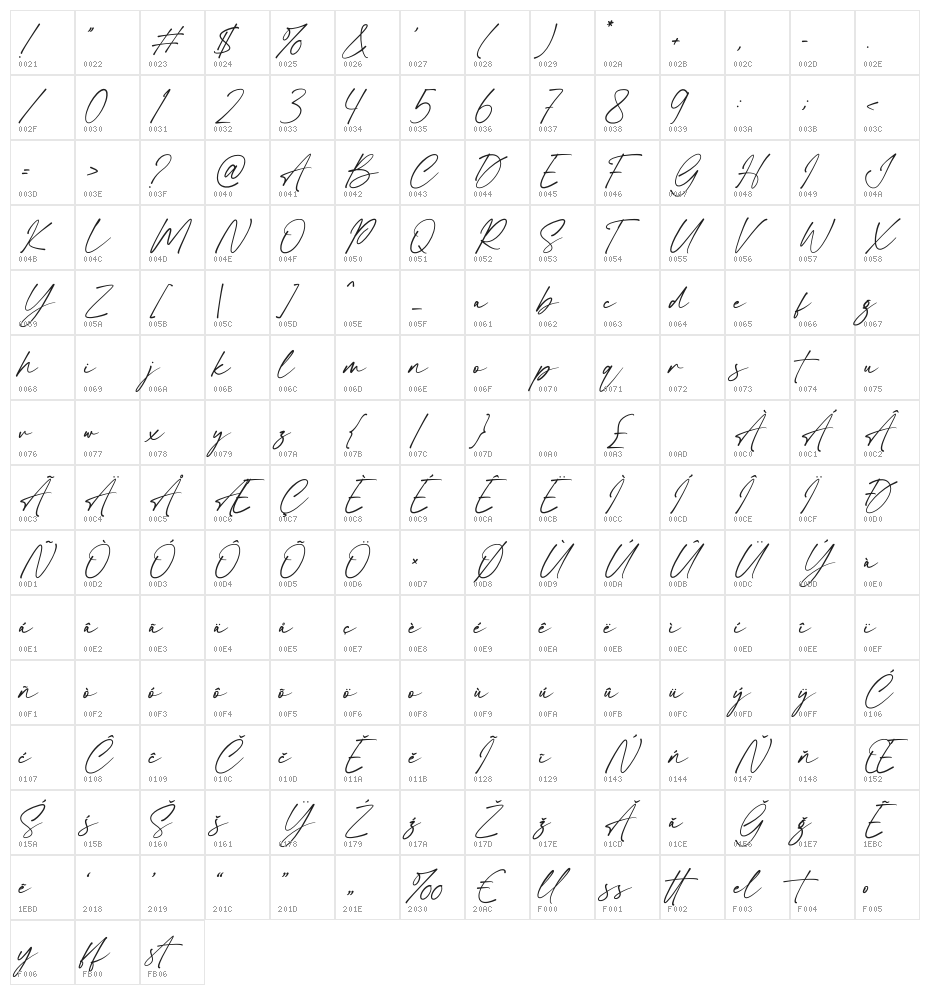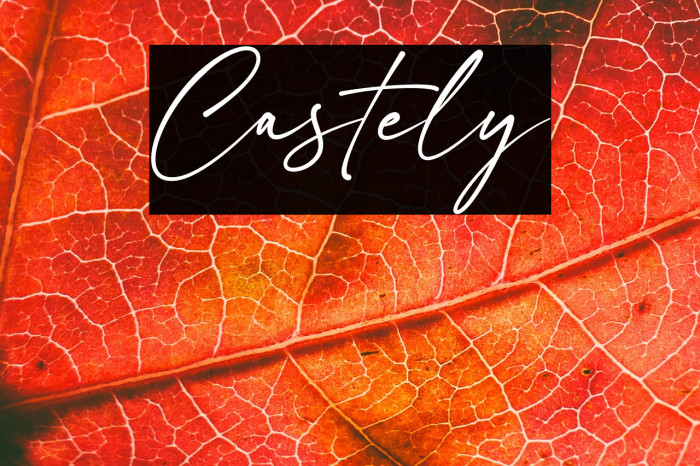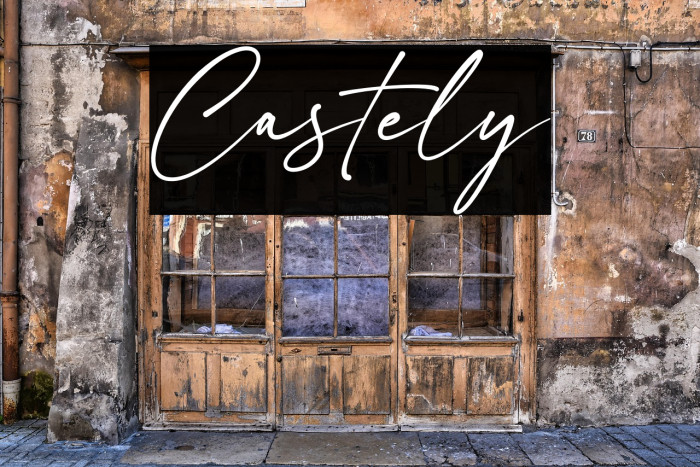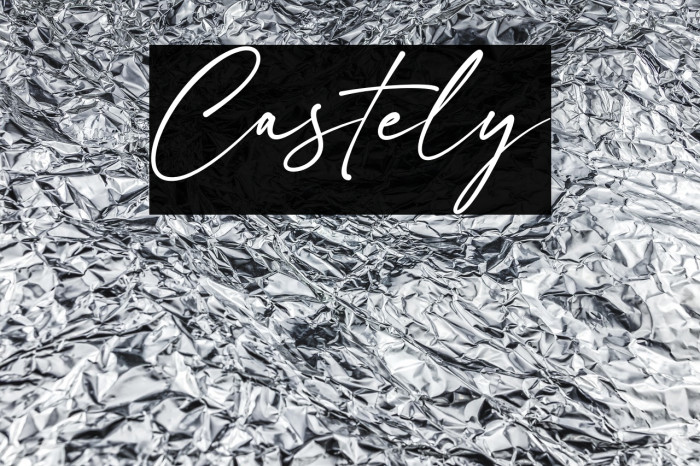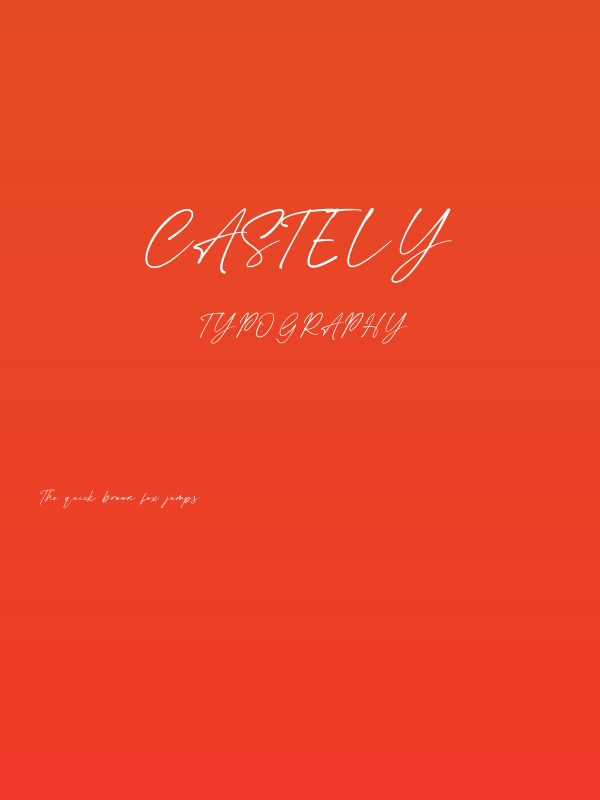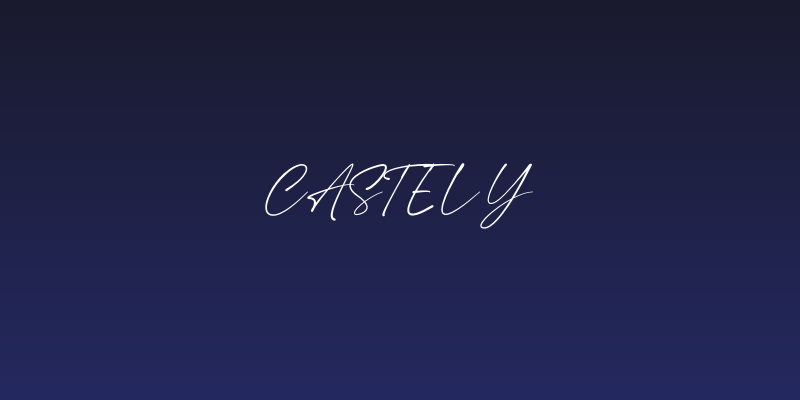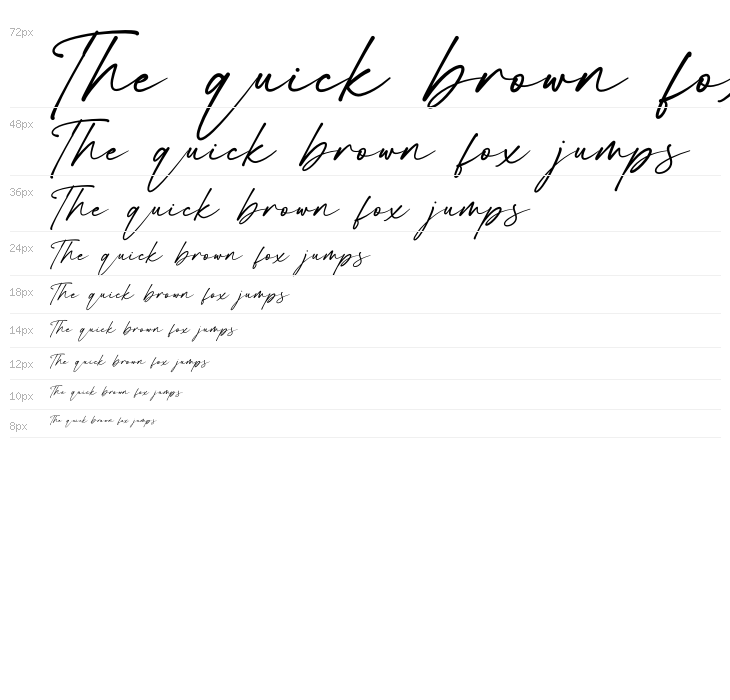
Castely Font
Castely Description
This elegant script font features fluid, cursive strokes that mimic natural handwriting. The uppercase letters are slightly more formal with a consistent slant, while the lowercase letters exhibit a casual flair with varied loops and connections. Numbers and special characters maintain the same flowing style, ensuring a cohesive appearance across all text. The font's delicate lines and graceful curves make it ideal for projects that require a personal touch.
| Overall Style | Elegant |
| Use Case | Logos, Invitations, Personal Branding |
| Proposed Projects | Ideal for wedding invitations, greeting cards, personal branding, and elegant stationery. |